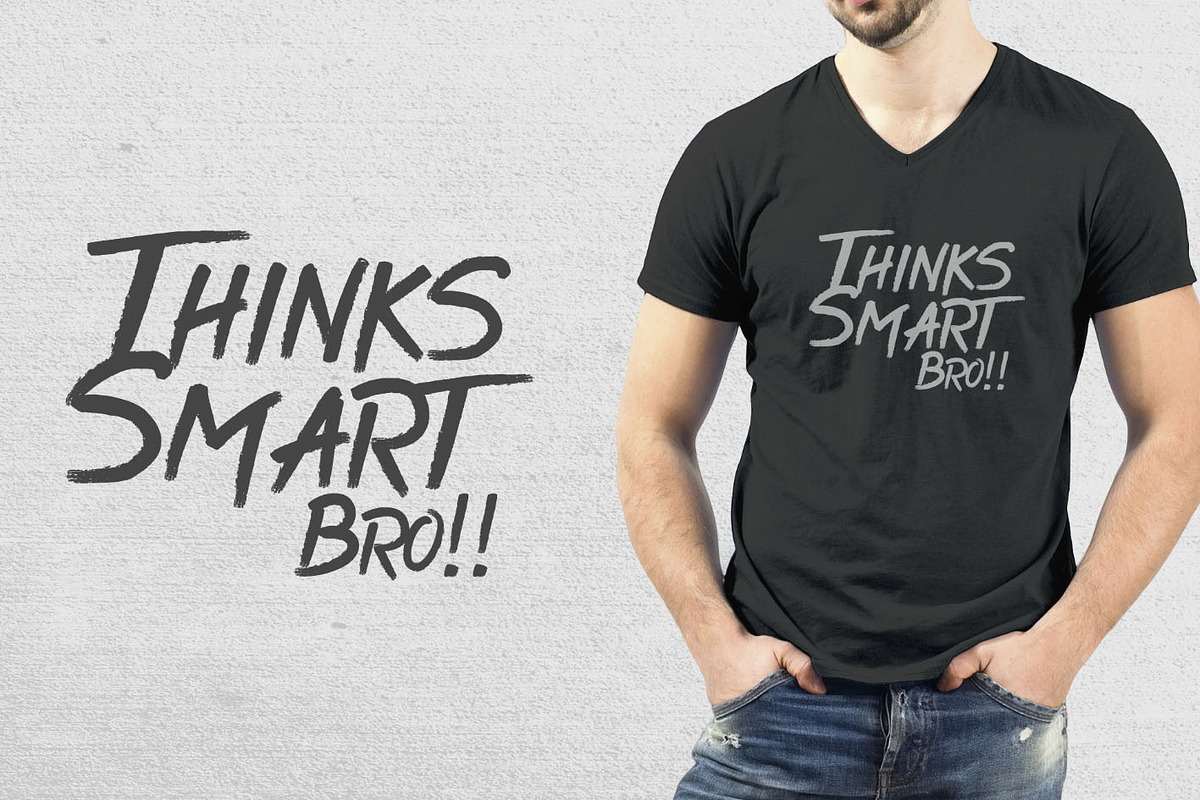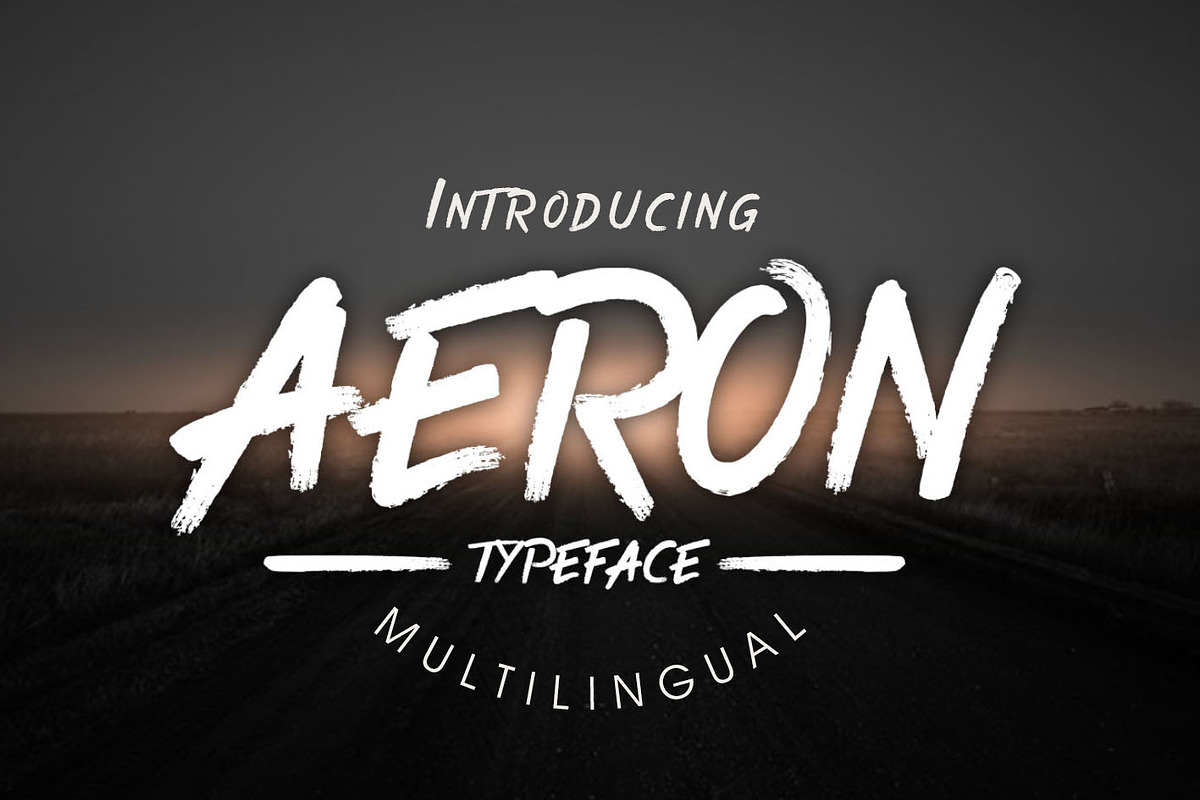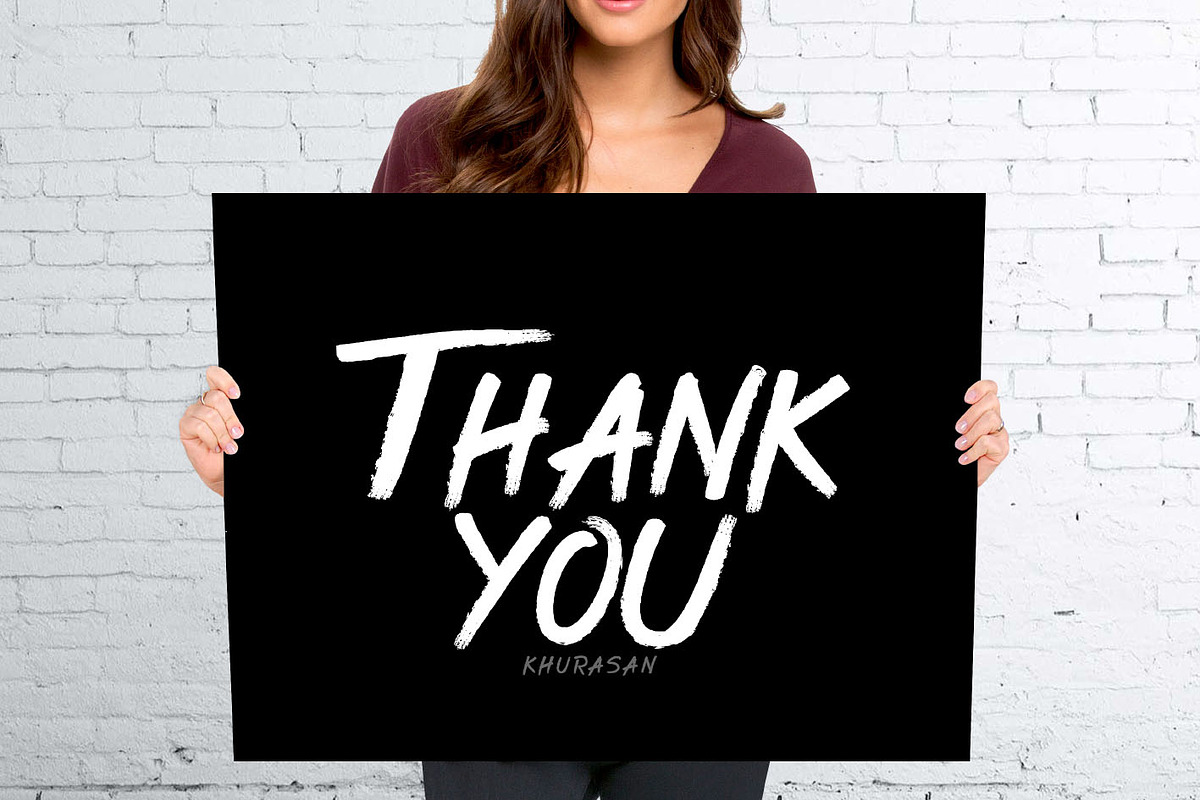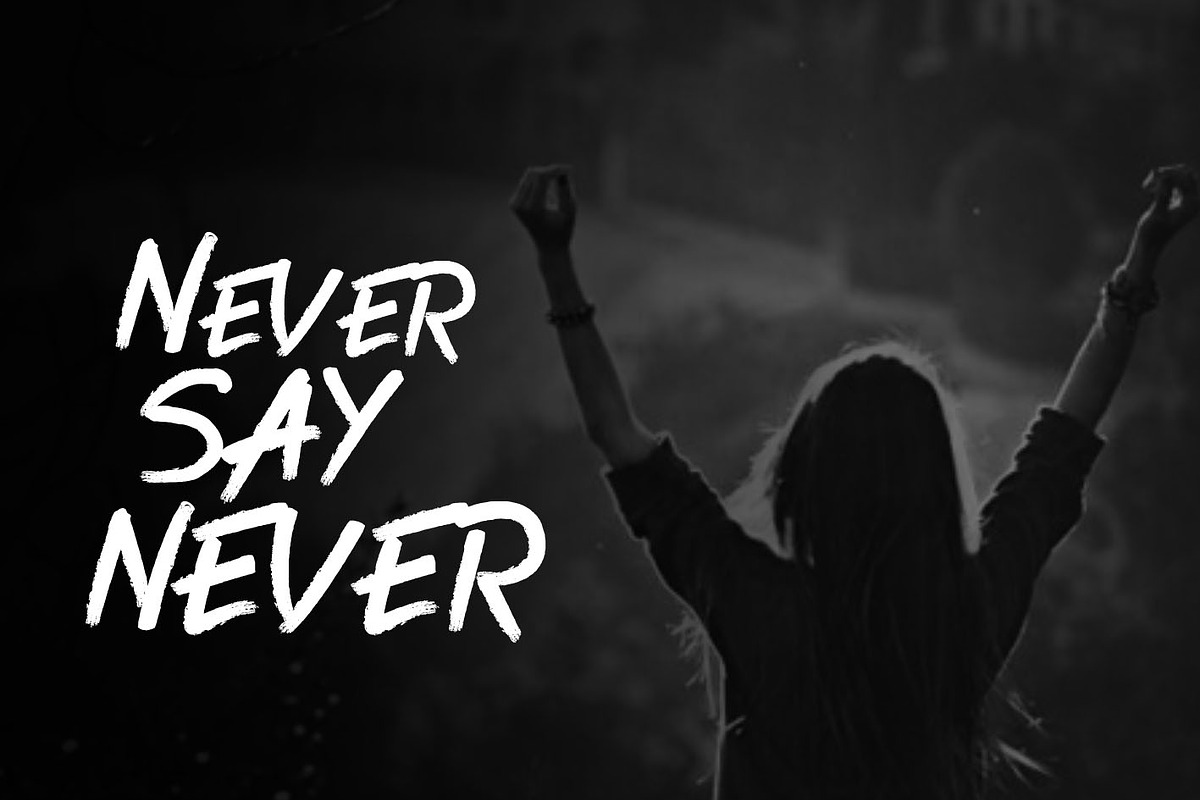
Aeron Typeface
Aeron Typeface by khurasan is a font selected for branding, posters, packaging, typography.
- Aeron font typeface has upper and lowercase characters, numerlals, supporty symbols you support international languages.
Why Aeron Typeface is worth a look
Aeron Typeface by khurasan fits naturally into Branding, posters, packaging, typography.